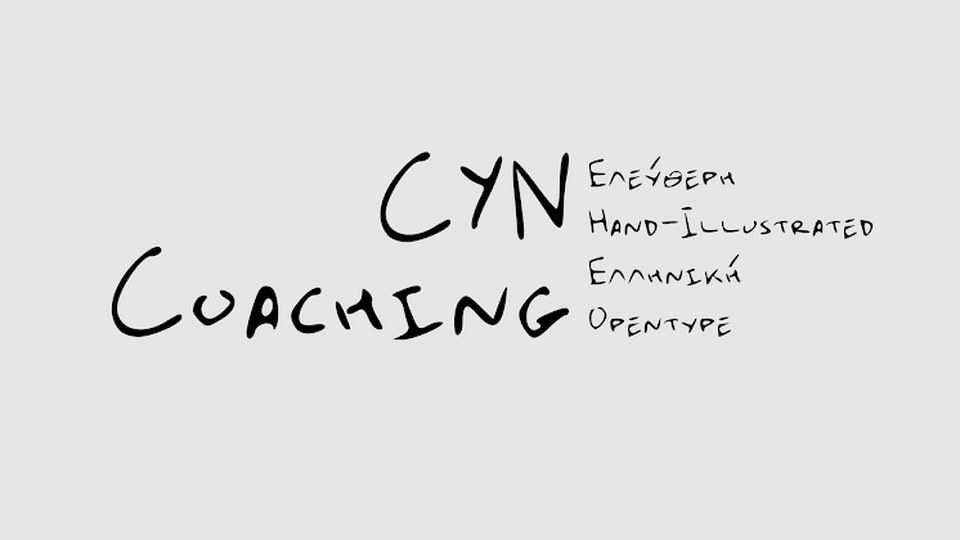
Download CYN Coaching font, a hand lettered sketchy script typeface. CYN Coaching font is great for notes, quotes, cards and any project, that needs a personal touch.
Designer: Petros Vasiadis